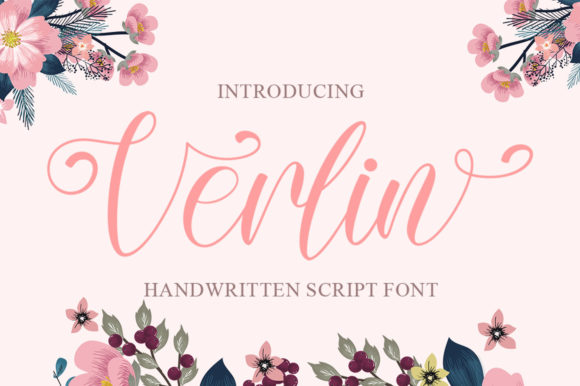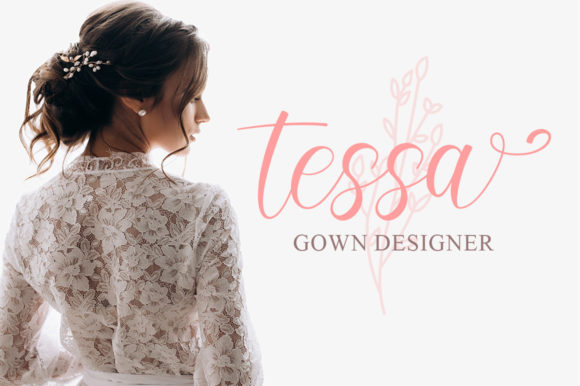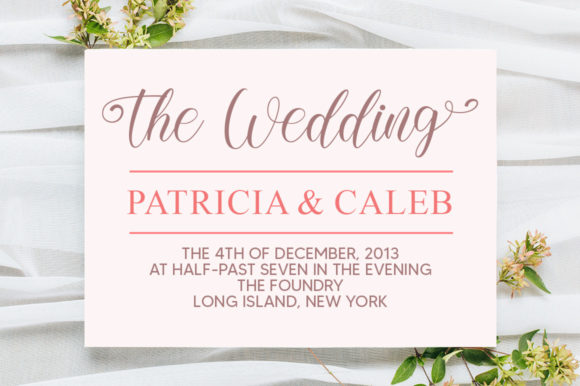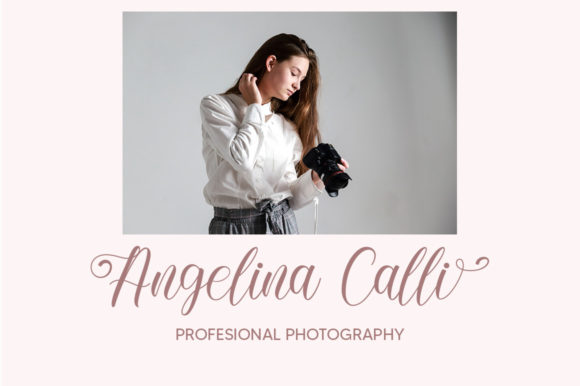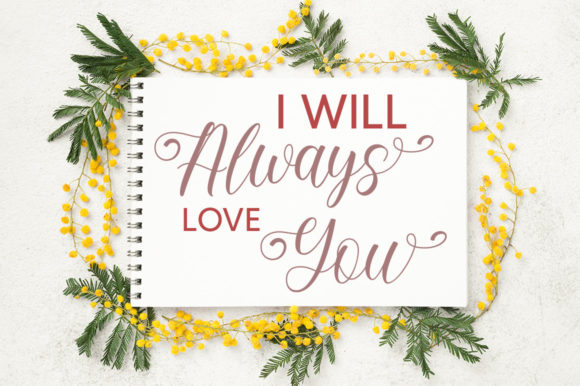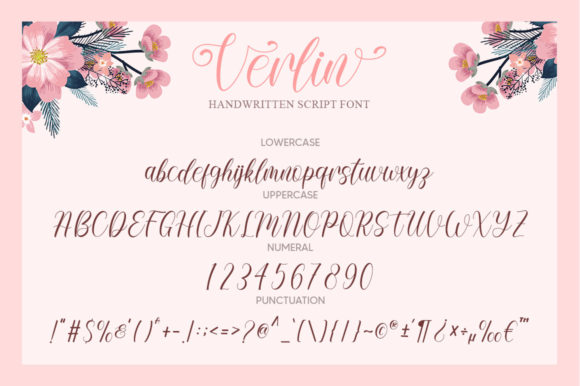
Verlin Font
About Verlin Font
Verlin is a refined and elegant handwritten font. Dainty and joyful, this font will be ideal for writing wedding invitations, cards or any other design that may need a romantic, personalized touch! Verlin is PUA encoded which means you can access all of the glyphs and swashes with ease!